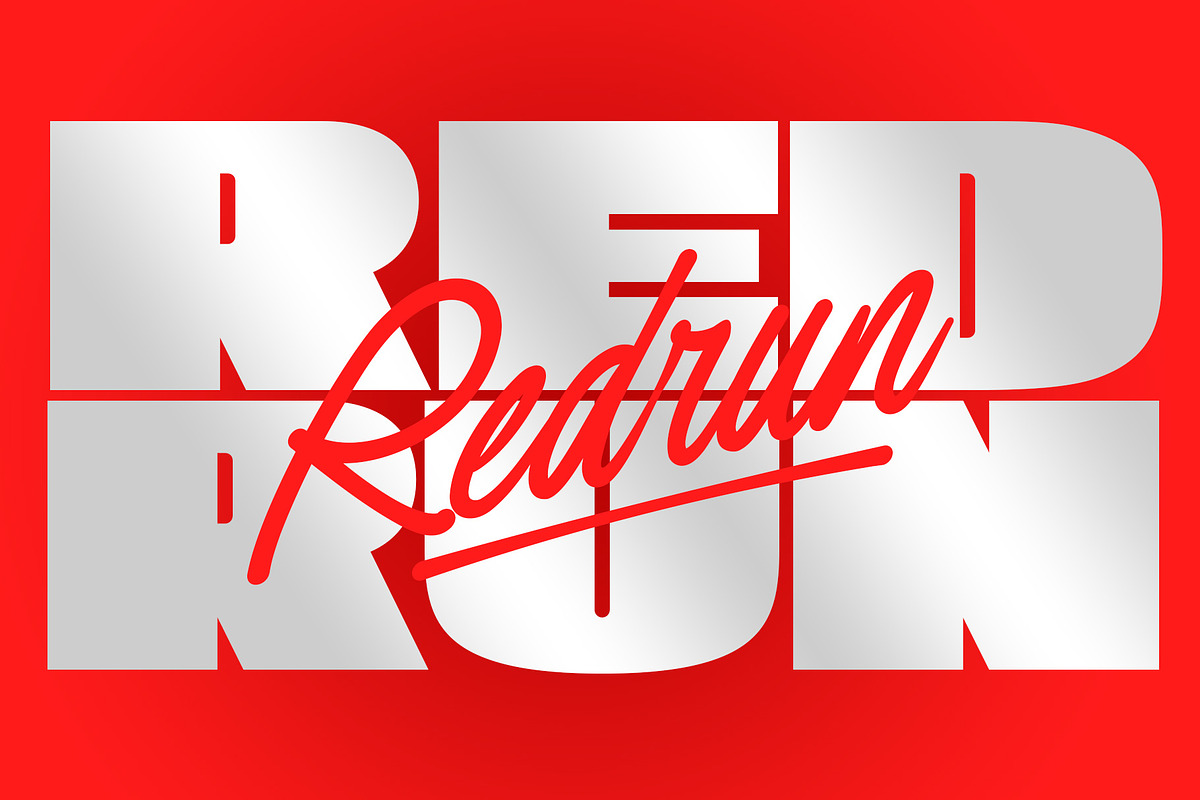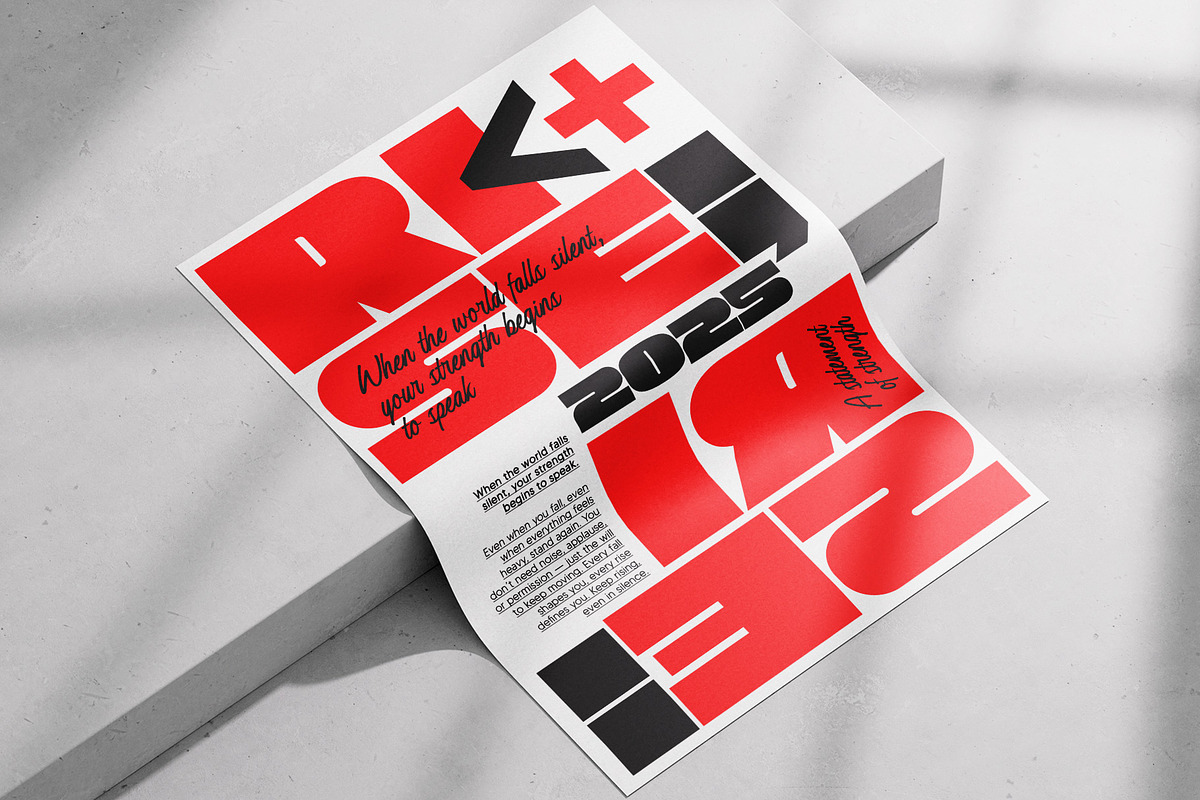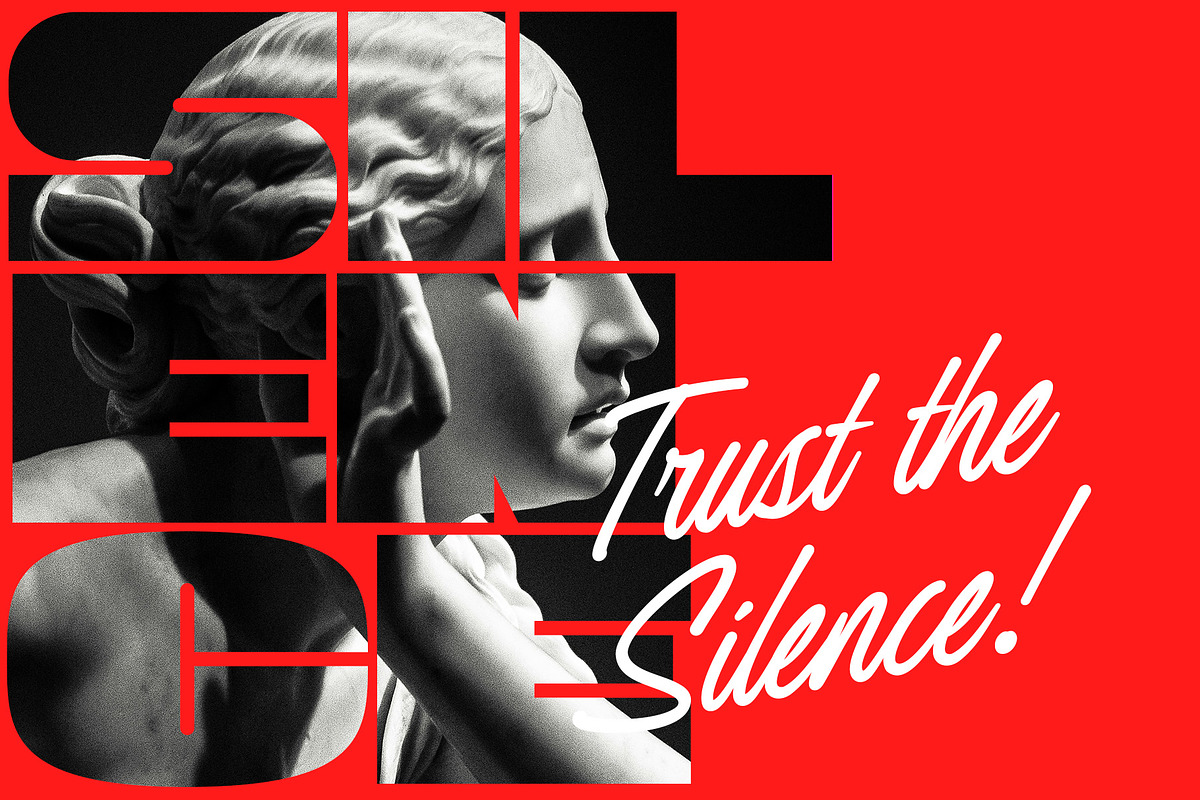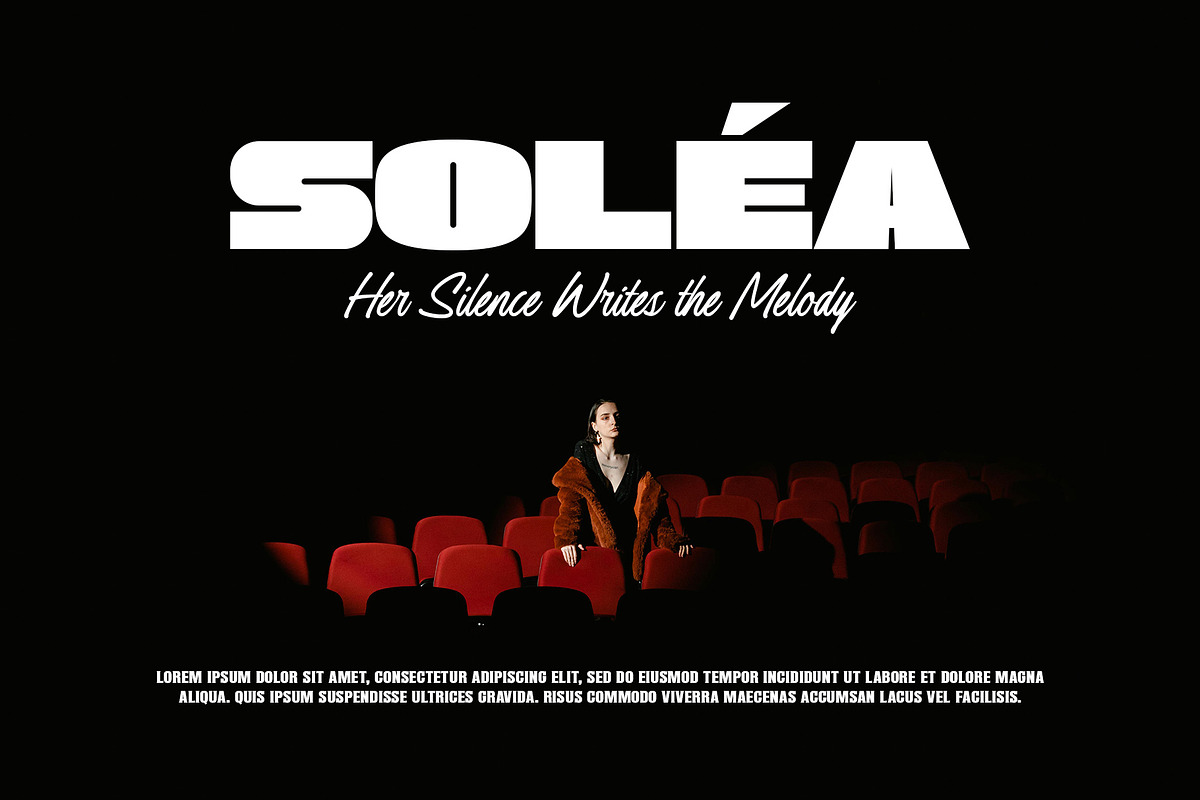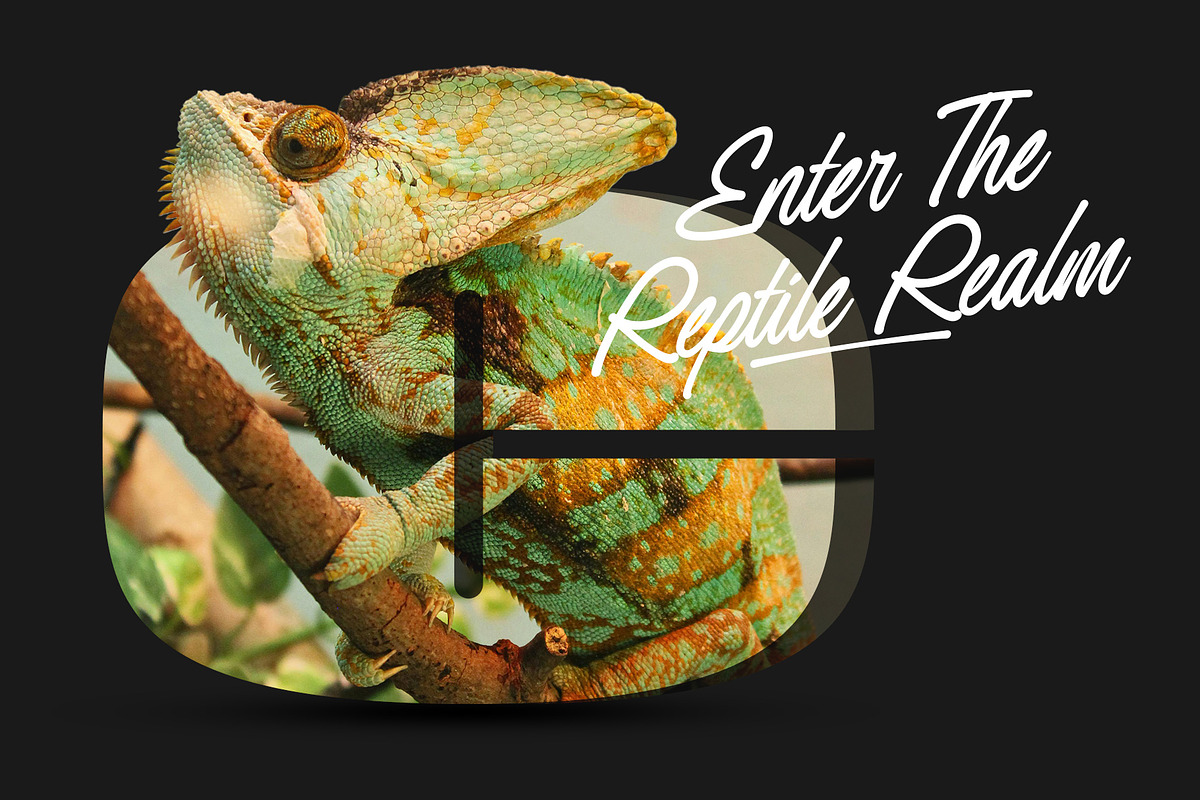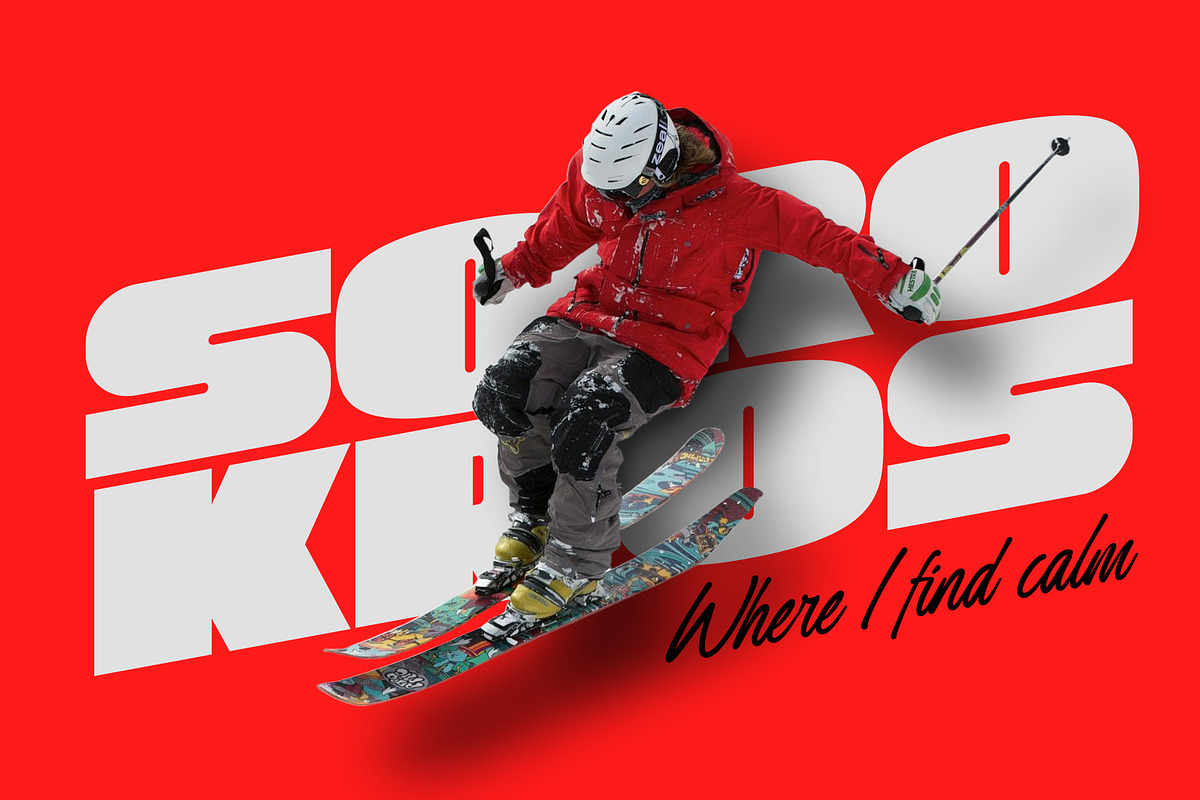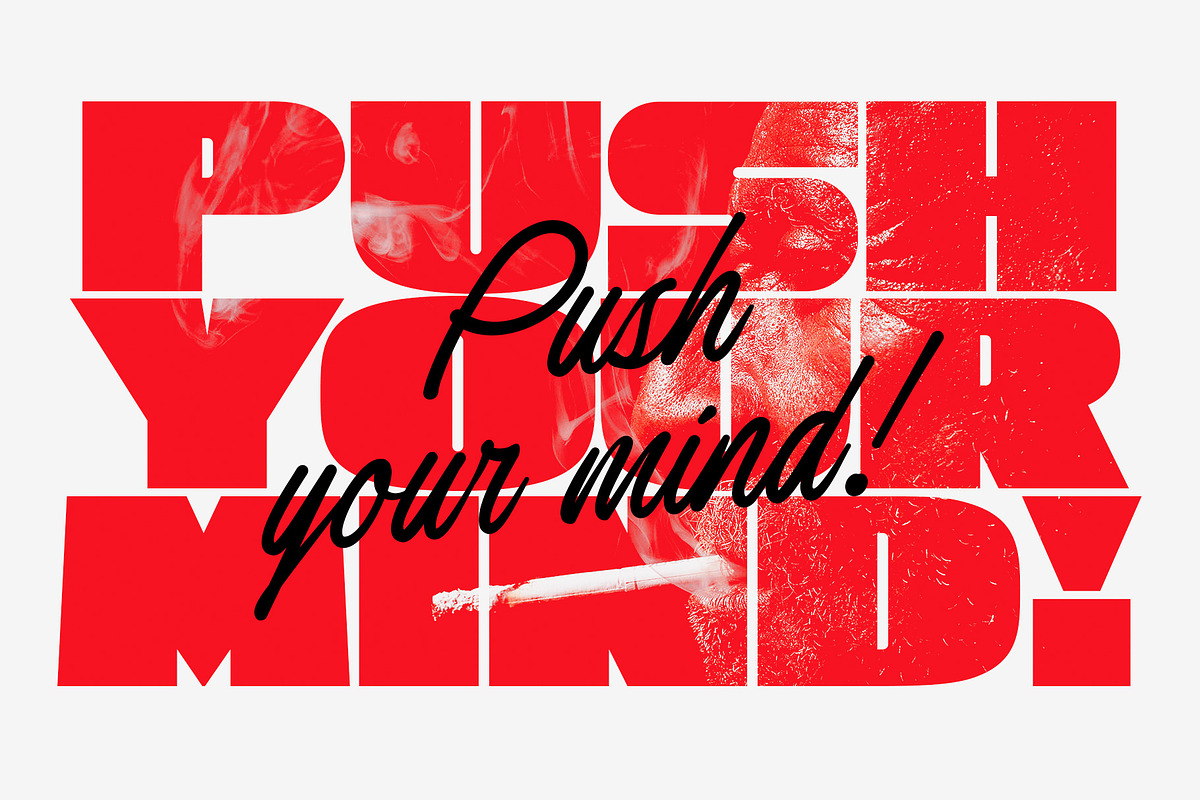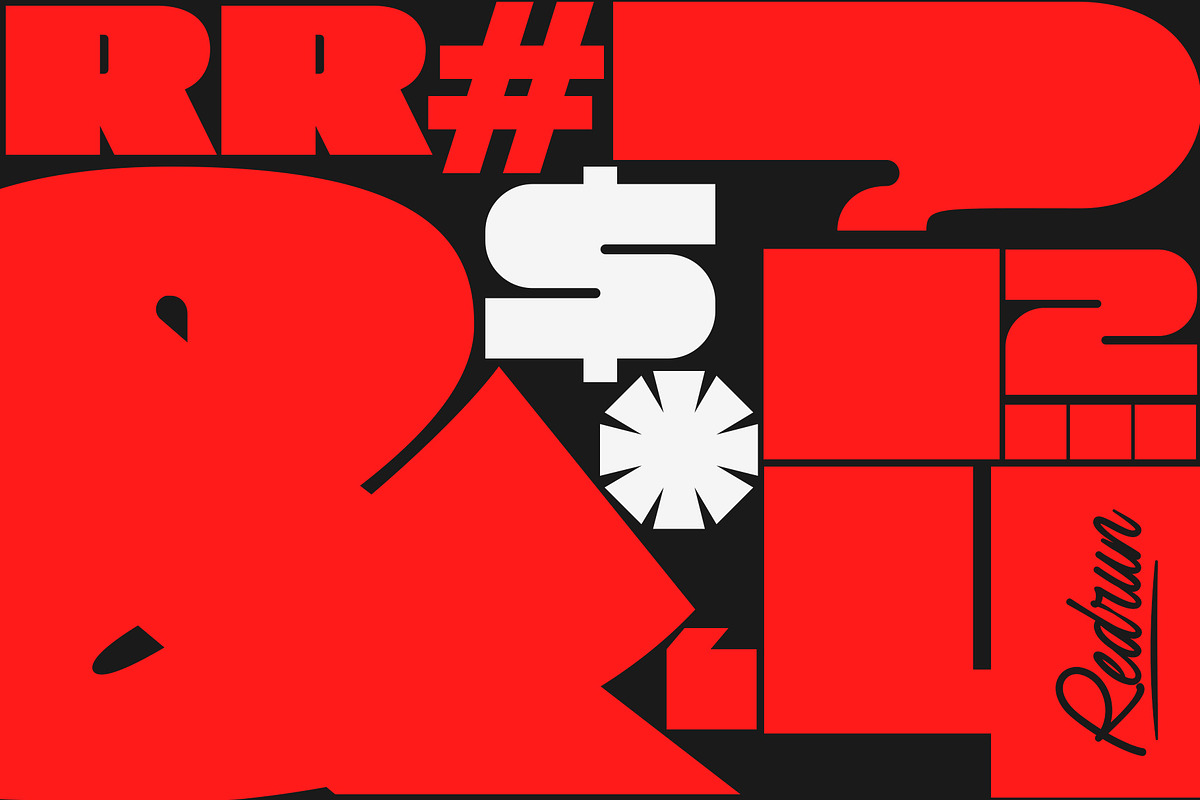
Redrun | Font Duo
Introducing Redrun, a font duo that combines bold display style with a modern handwritten touch. The bold display font brings a strong and confident look, while the script adds energy and a personal flair. Together, they create a clean and balanced appearance, perfect for various design needs such as branding, logos, posters, product packaging, titles, and digital ads. Redrun delivers a strong visual impression with a modern touch.
- Display & Script